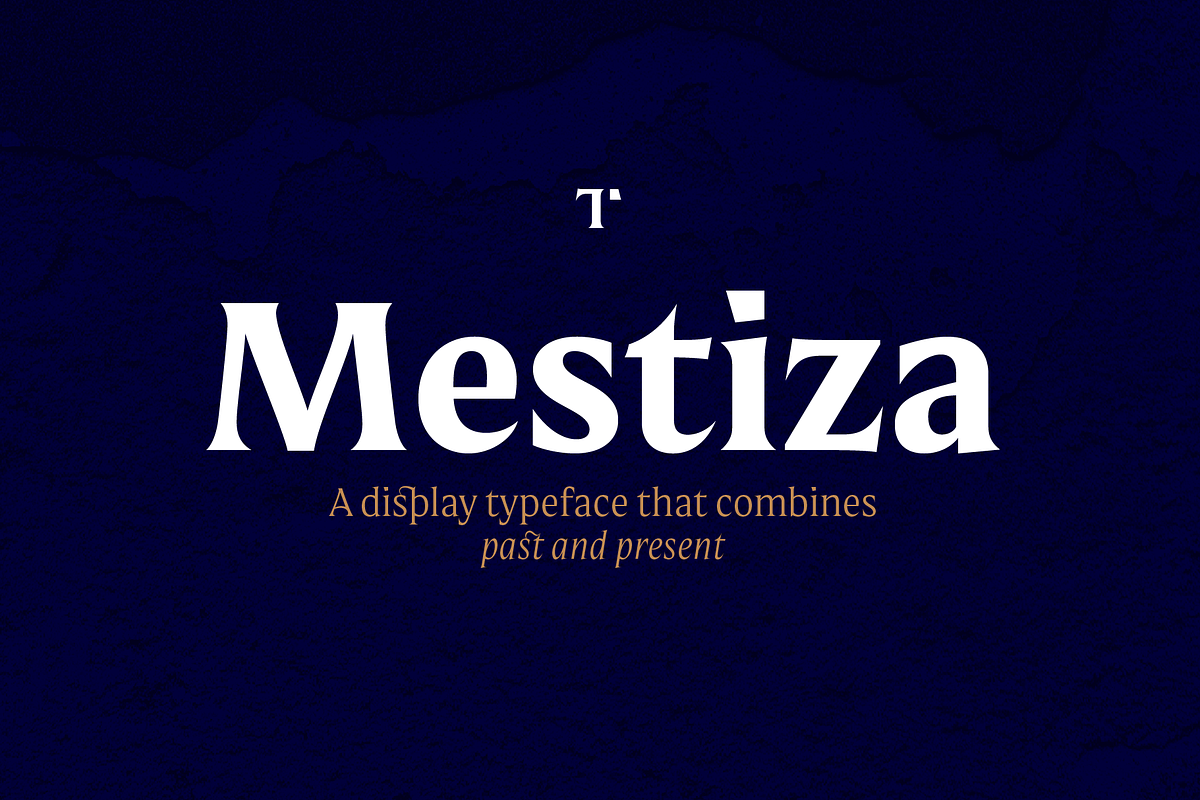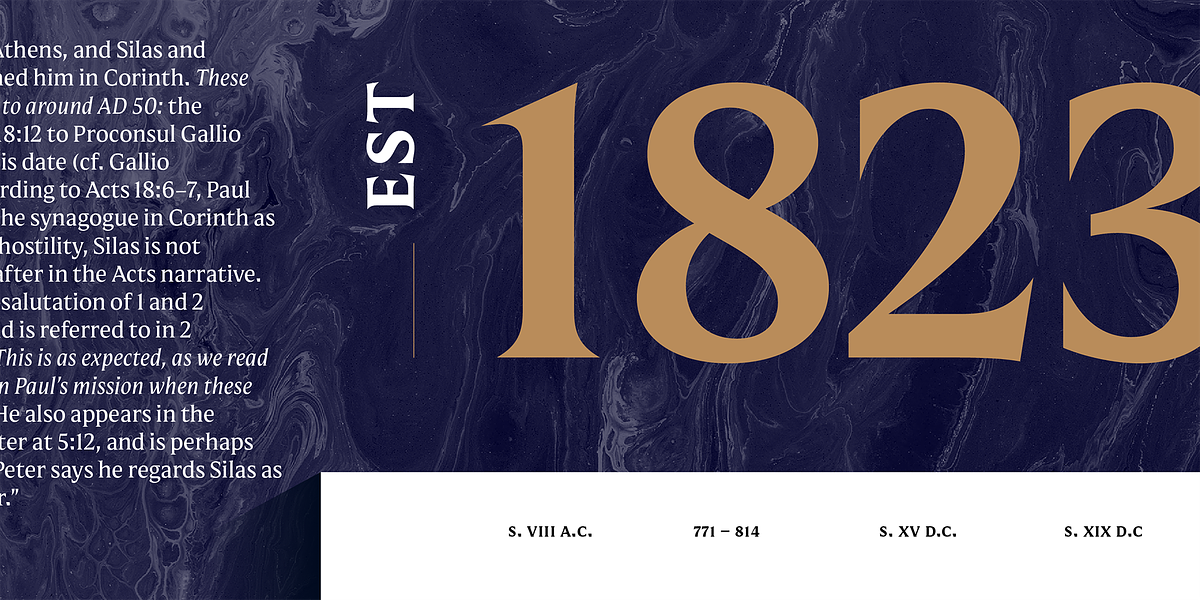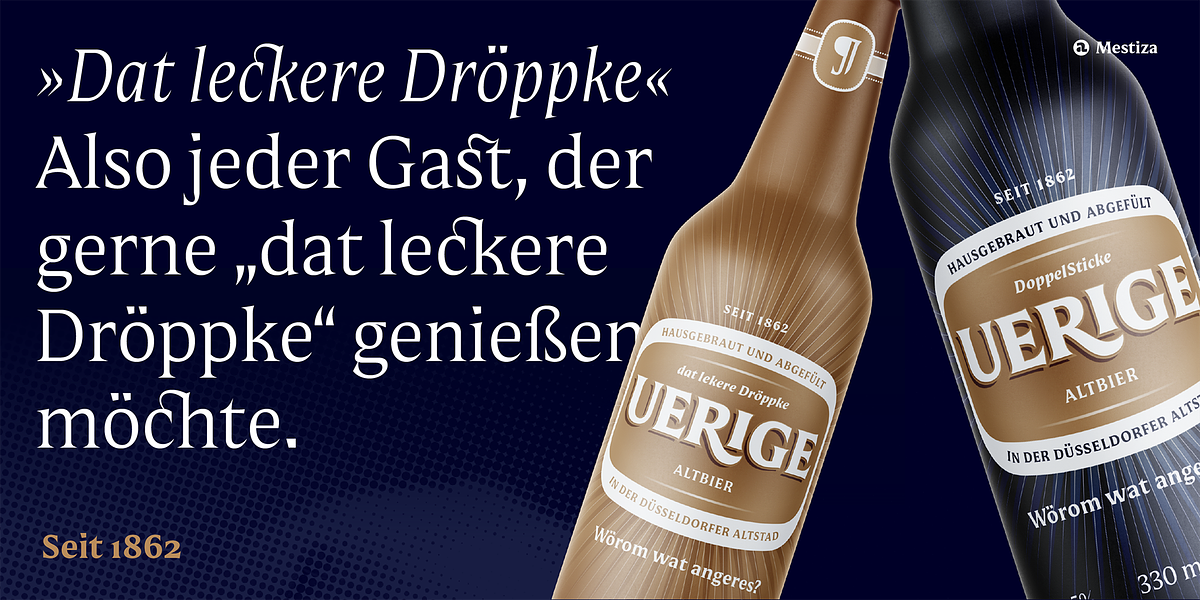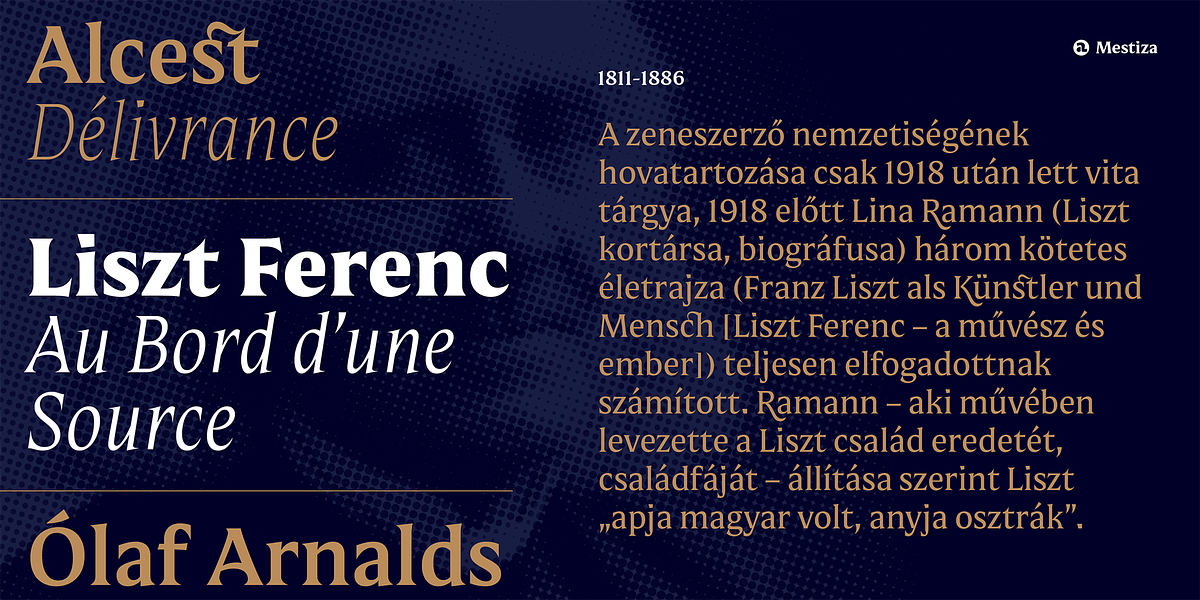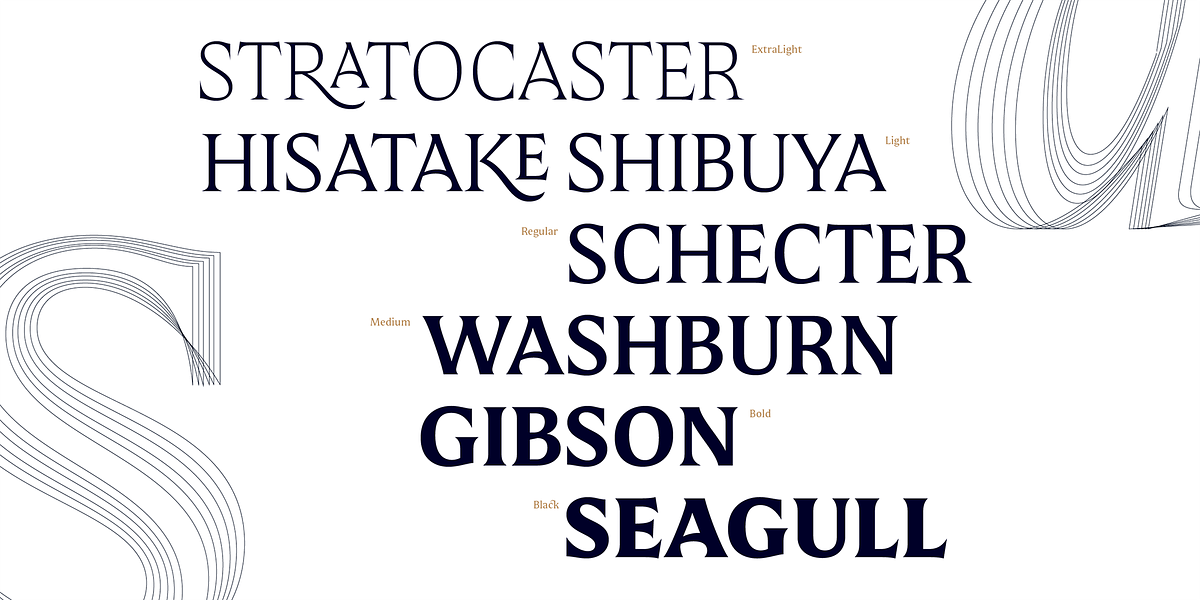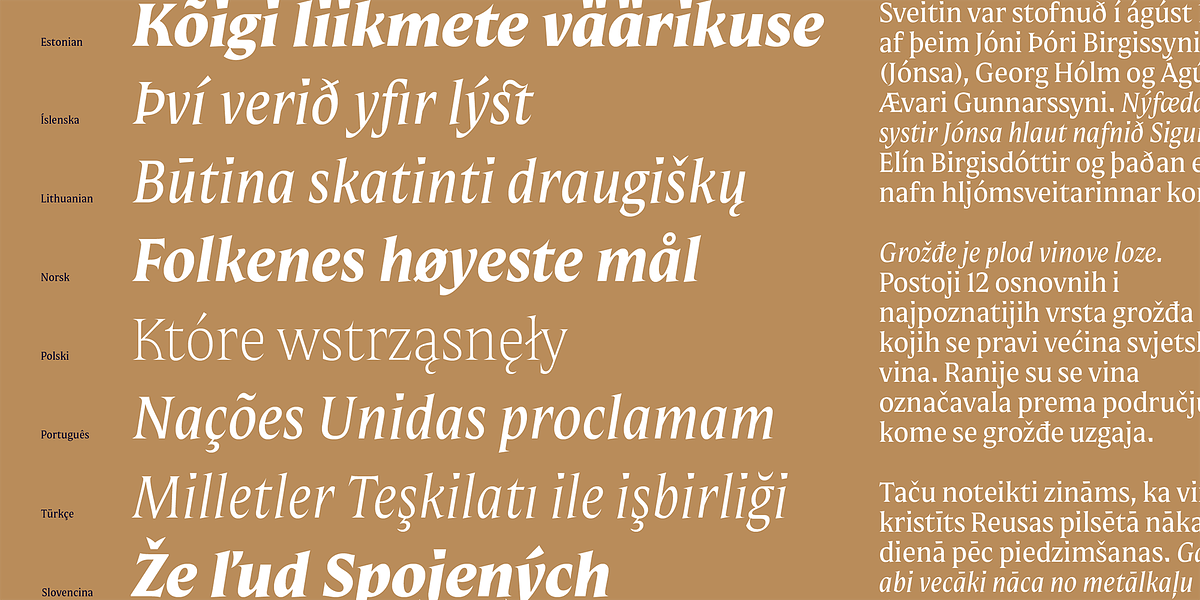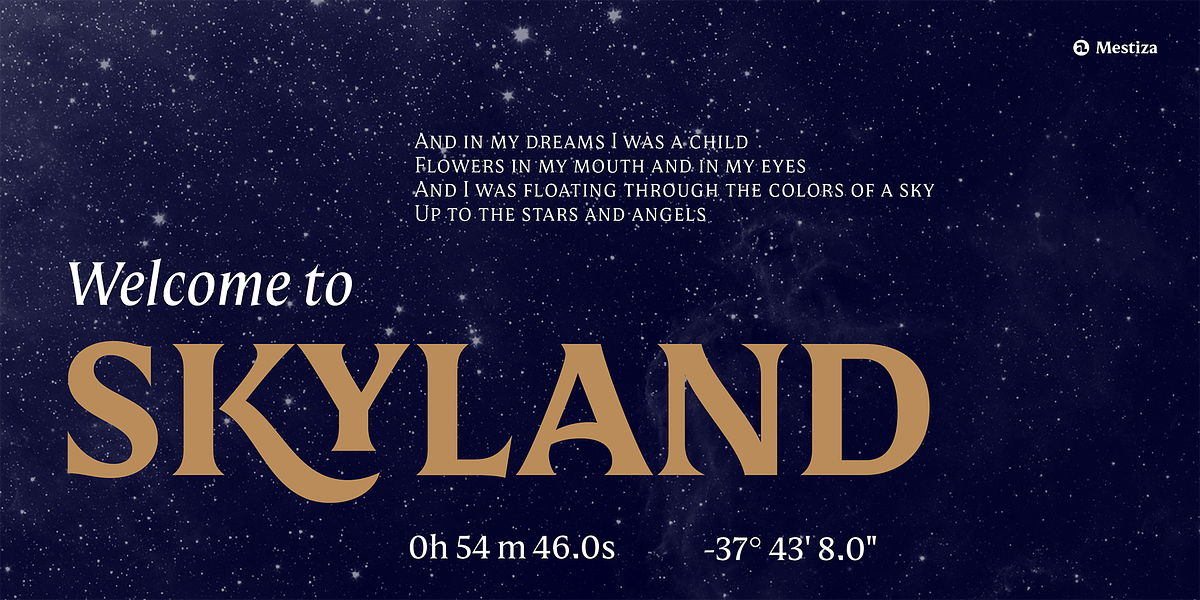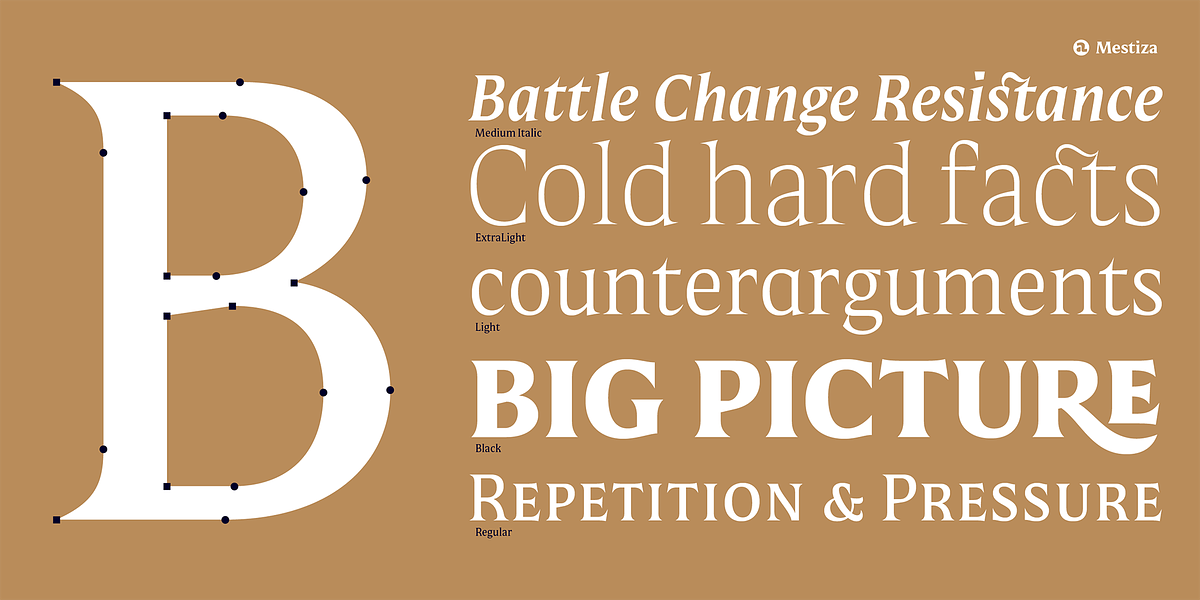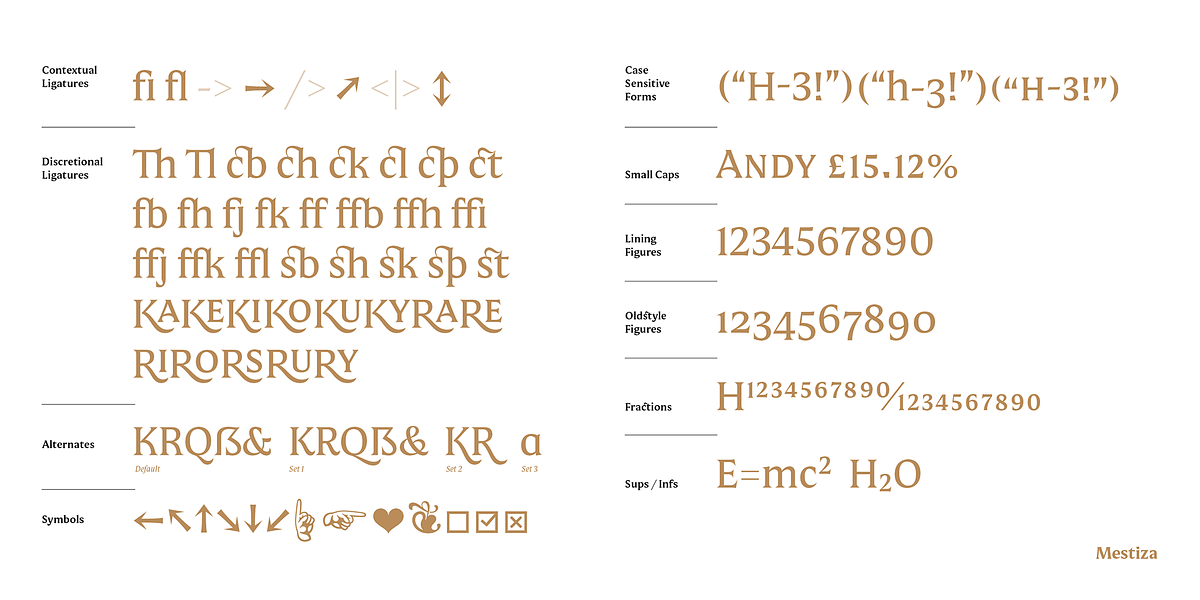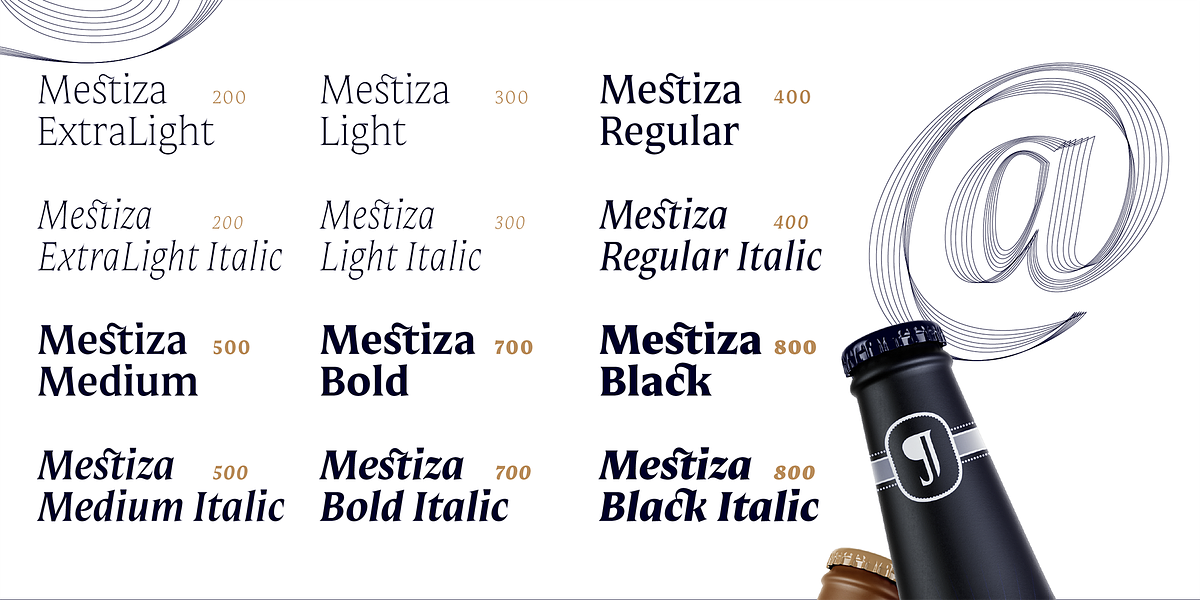
Mestiza
Mestiza is a calligraphic serif typeface characterized by its sharp terminals and high contrast. This combination gives it a unique personality that is both elegant and strong. The font family includes 12 variants, including Roman, Italic, Small Caps, Old-Style numbers, Superiors, Inferiors, Contextual and Discretionary ligatures, Symbols, and some Alternates. With support for over 700 characters and 219 Latin-based languages, Mestiza is a versatile choice for headlines and branding projects.